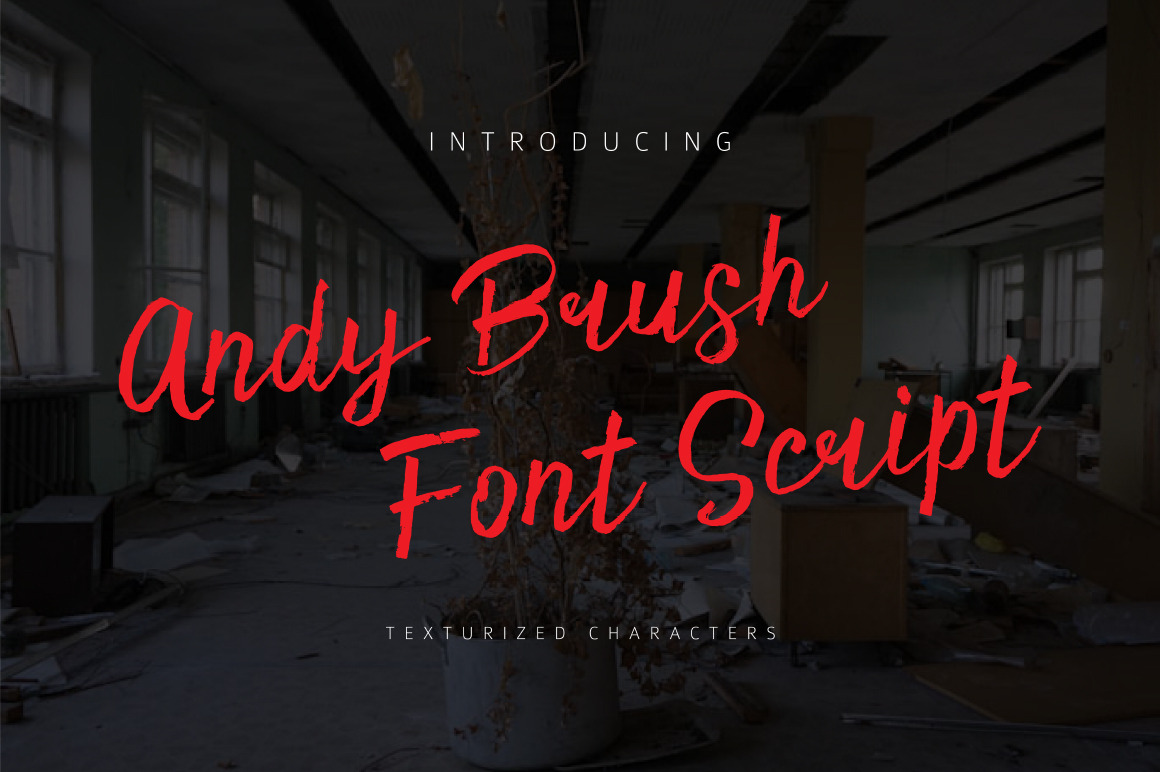
Andy Brush Font Script
Andy Brush Font Script is a hand-drawn script with textured characters and authentic imperfections.
A handmade brush font containing upper & lowercase characters, numerals and a large range of punctuation.
Andy Brush Font Script containing language support characters.
Perfect for brand imagery, logos, product packaging, posters, social media posts, apparel, t-shirts.